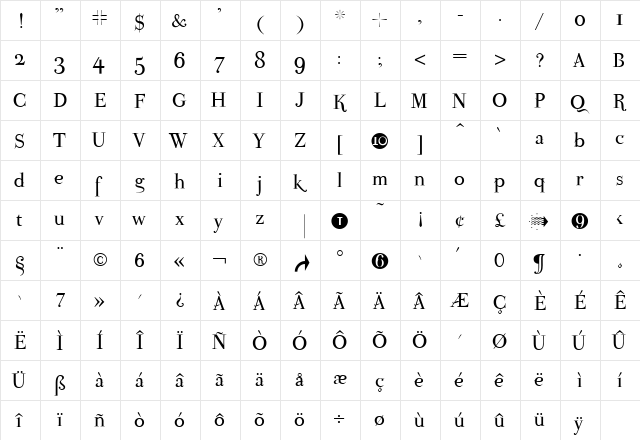
AIParmaPetit Regular
Design Context for AIParmaPetit Typeface
AIParmaPetit is a composed and adaptable typeface that performs quietly and consistently across a wide range of design contexts.